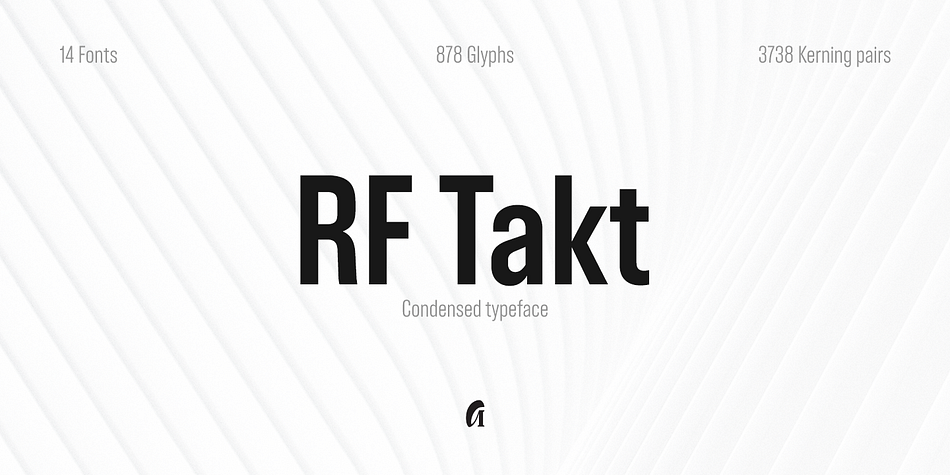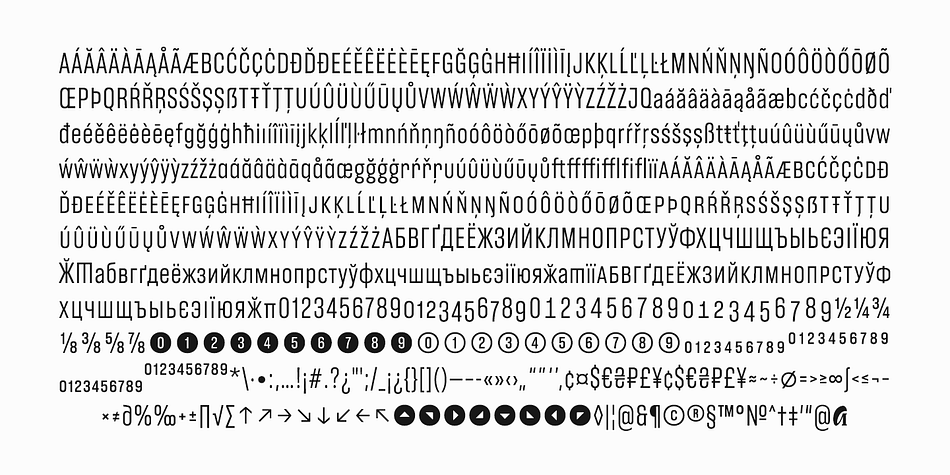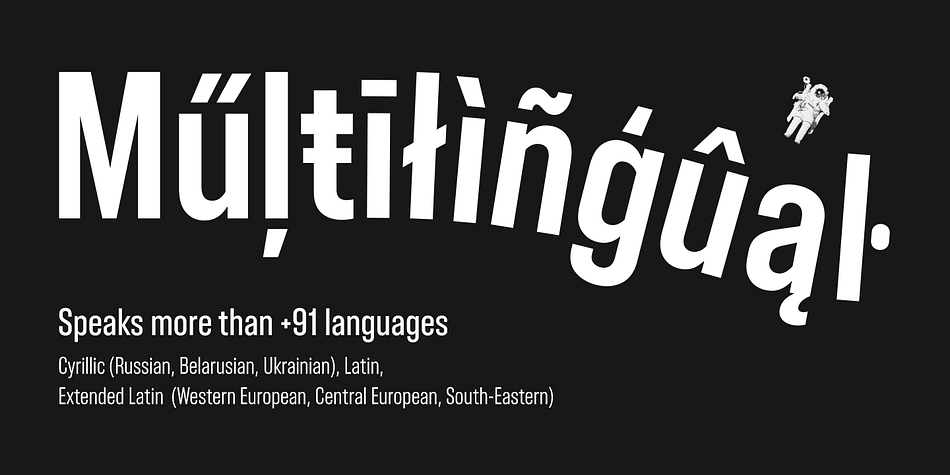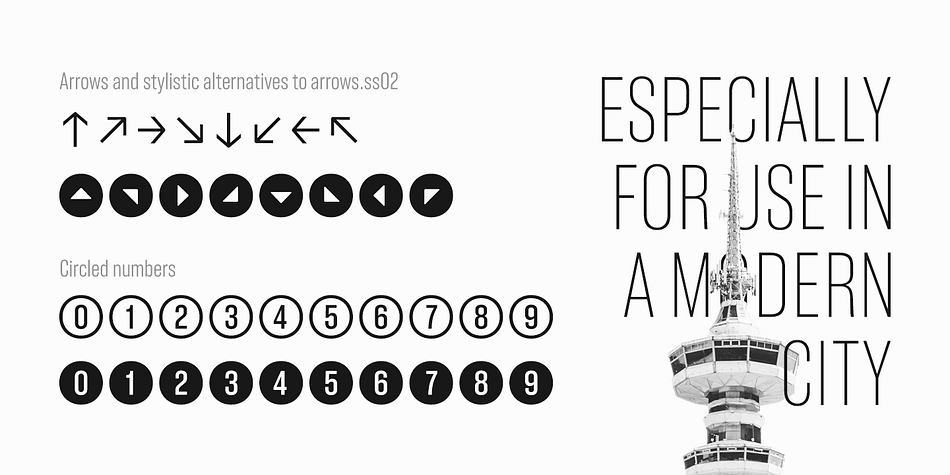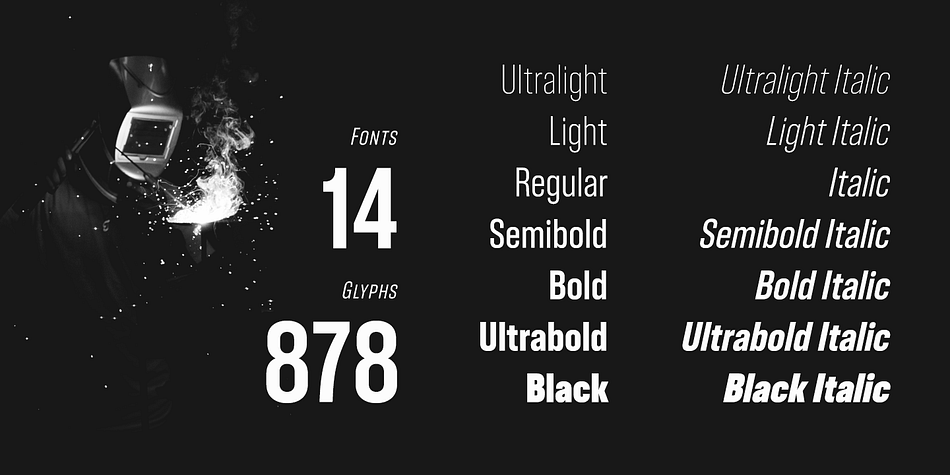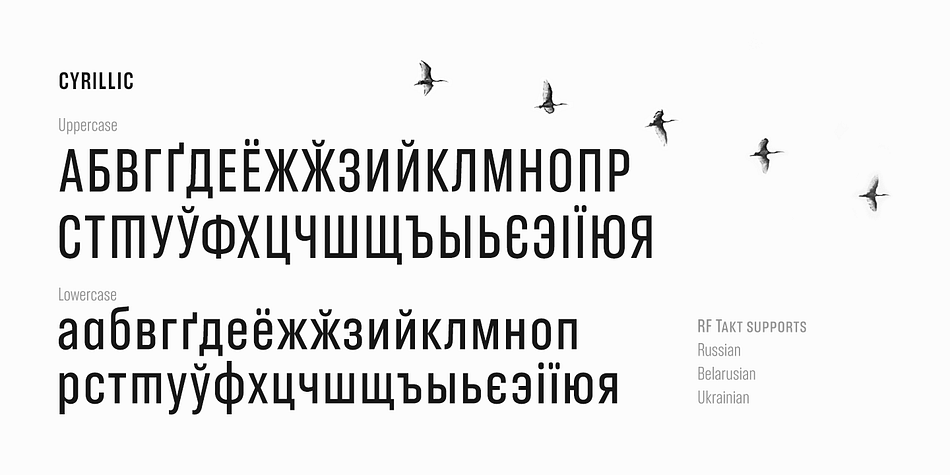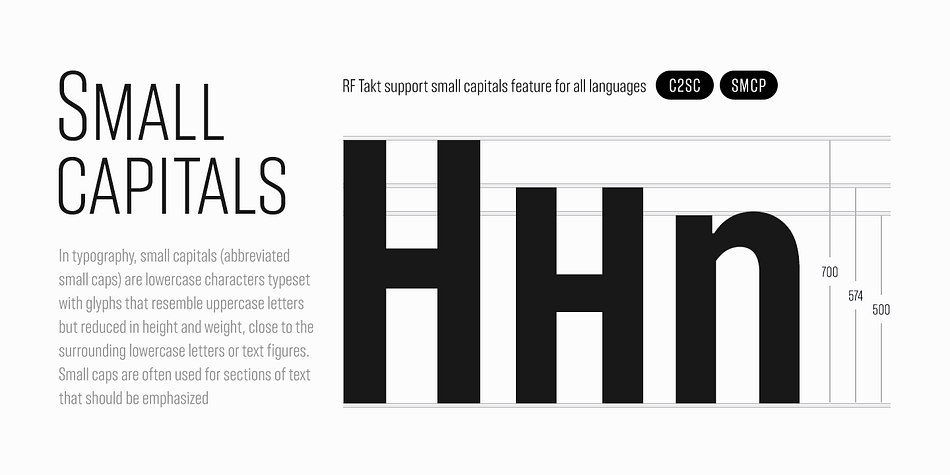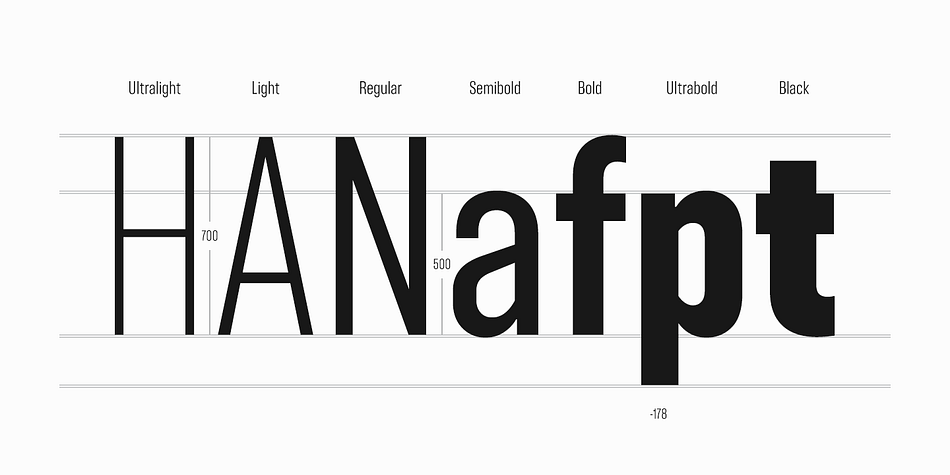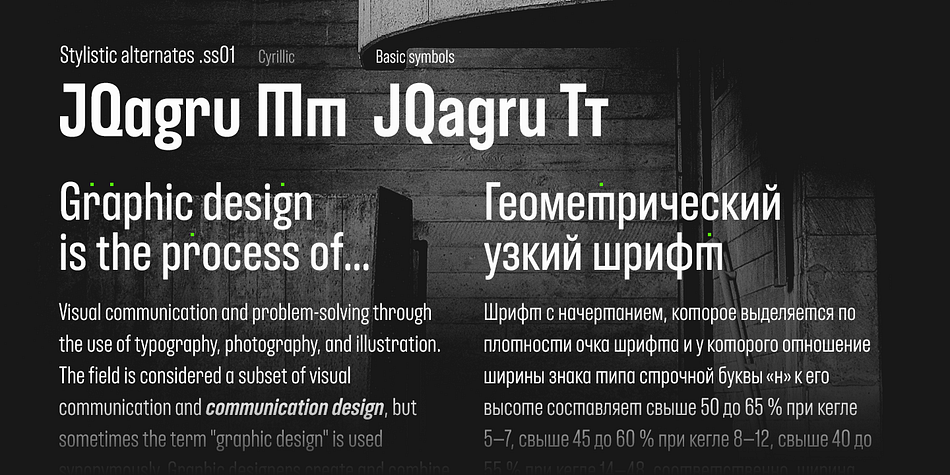
Designed by Misha Panfilov, RF Takt is a display sans and sans serif font family. This typeface has fourteen styles and was published by Russian Fonts.
RF Takt is a condensed geometric grotesque with closed forms of signs. 14 fonts from Ultralight to Black. 878 glyphs and 3738 kerning pairs. 16 opentype features. Multilingual support: Latin, latin extended, cyrillic and cyrillic extended (more than 91+ languages)
We have tried to make RF Takt feel as good as possible in the field of graphic design and became a versatile tool for solving a wide range of graphic tasks. The specific feature of the font is that having condensed forms of characters allows you to place a large amount of information in a limited space. RF Takt will be a bright accent in a large size and will keep the readability in a small size. A large amount of opentype features opens up a wide range of options for experiments and original solutions. RF Takt is ideal for poster design, web design, newspaper design, magazine layout and covers, video titles, infographics, logos and branding, packaging, navigation solutions.
Opentype features: ligatures, alternative symbols, ordinary and tabular numbers, old-style and old-style tabular numbers, tabular currency signs, fractions and automatic fraction, arrows and alternative arrows, case sensitive forms, upper and lower case numbers, small capitals.